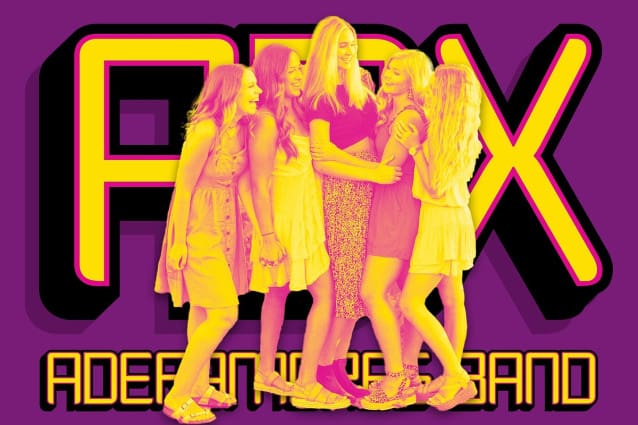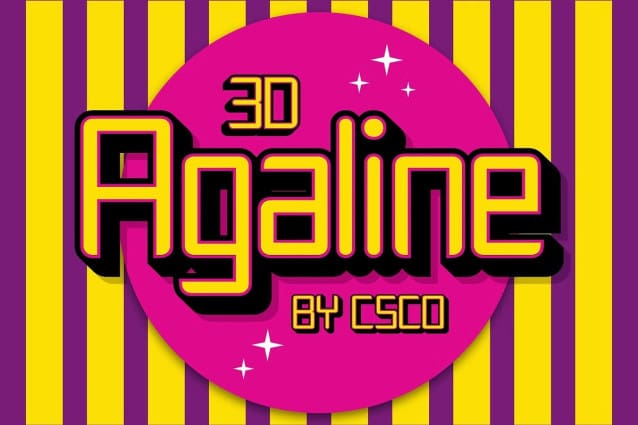
Agaline 3D Font
Agaline 3D Font is a sans serif font with a 3D effect and a retro vibe, perfect for display purposes. Its bold design and three-dimensional elements create a nostalgic and dynamic look, ideal for posters, branding, and other projects that require a touch of retro charm.
With its vintage-inspired design and three-dimensional appearance, Agaline 3D offers a fresh take on sans serif fonts. The 3D effect and retro vibe create a captivating and timeless look, perfect for designs that demand attention and convey a sense of nostalgia and style.
Whether you’re designing a retro-themed advertisement or creating a classic movie poster, Agaline 3D is sure to make an impression. Its 3D effect and retro vibe make it perfect for displays that need a touch of vintage flair and modern appeal.
Despite its distinctive appearance, Agaline 3D is versatile and easy to use. The font works well in both large and small sizes, making it suitable for a variety of applications, from headlines and banners to body text and more. With its blend of 3D effect and retro vibe, Agaline 3D adds a unique and nostalgic element to any design.